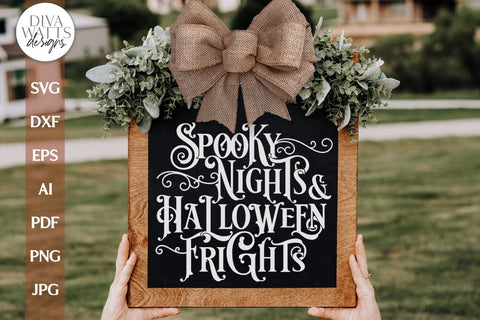
Step into the haunting allure of Halloween with our "Spooky Nights SVG" - a gothic-inspired sign that embodies the eerie charm of the season. This bewitching SVG design combines the elements of spooky nights and Halloween frights, making it the perfect addition to your Halloween and fall decor.
The gothic-inspired aesthetics in this design create an atmosphere of mystery and excitement, perfectly capturing the spirit of Halloween. With its chilling elegance, this SVG will add a touch of enchantment to your fall decor and set the stage for spooky nights filled with Halloween frights.
Whether you're adorning your front door, creating wall art, or hosting a Halloween party, the "Spooky Nights SVG" allows you to infuse your projects with the thrilling essence of the season.